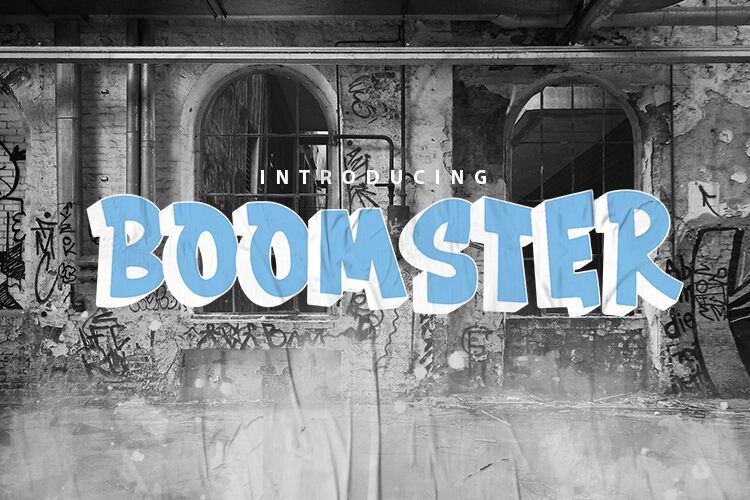
BOOMSTER Graffiti
Boomster Graffiti - a bold, eye-catching font that exudes urban energy and raw artistic expression. Crafted by The Docallisme - Amry Al Mursalaat, this graffiti-inspired typeface boasts a captivating 3D aesthetic, lending depth and dimension to any design. The chunky, expanded letterforms command attention, while the dynamic, angular lines convey a sense of movement and vitality.
Boomster Graffiti is the perfect choice for projects seeking to capture the gritty, rebellious spirit of street art and underground culture. Its powerful visual impact makes it an ideal fit for album covers, event posters, apparel designs, and branding that aims to stand out and make a statement. Whether used as a dominant display font or an accent element, Boomster Graffiti's bold, unapologetic personality is sure to leave a lasting impression.